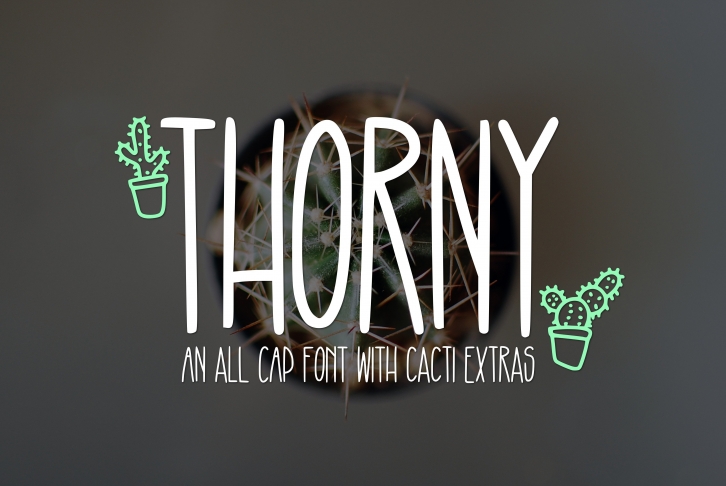
Introducing Thorny Font, the perfect hand-lettered font for your next project! This tall, thin font is perfect for everything from shirts to labels and even includes some cacti doodles. With its unique style, Thorny Font will make your project stand out from the rest. So don’t wait any longer, add Thorny Font to your collection today!